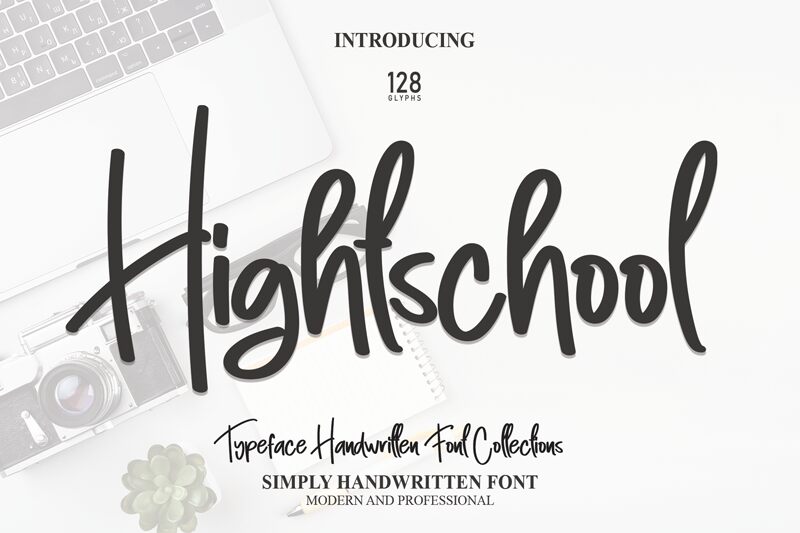
Hightschool
Hightschool, a delightful creation by Scratchones, is a charming handwritten font that exudes youthful energy and creativity. With its semi-light weight, it strikes the perfect balance between elegance and legibility.
This versatile typeface is an ideal choice for a wide range of projects, including children's books, playful branding materials, and whimsical social media content. Whether you're designing educational resources or crafting invitations for a lively event, Hightschool will bring a touch of whimsy and authenticity to your work.
Let your imagination run wild with this captivating font!
The latest style letters are perfect for wall displays, wedding invitations, social media post logos, advertisements, product packaging, product designs, labels, photography, watermarks, invitations, stationery, and any project that requires taste handwriting.
This versatile typeface is an ideal choice for a wide range of projects, including children's books, playful branding materials, and whimsical social media content. Whether you're designing educational resources or crafting invitations for a lively event, Hightschool will bring a touch of whimsy and authenticity to your work.
Let your imagination run wild with this captivating font!
The latest style letters are perfect for wall displays, wedding invitations, social media post logos, advertisements, product packaging, product designs, labels, photography, watermarks, invitations, stationery, and any project that requires taste handwriting.